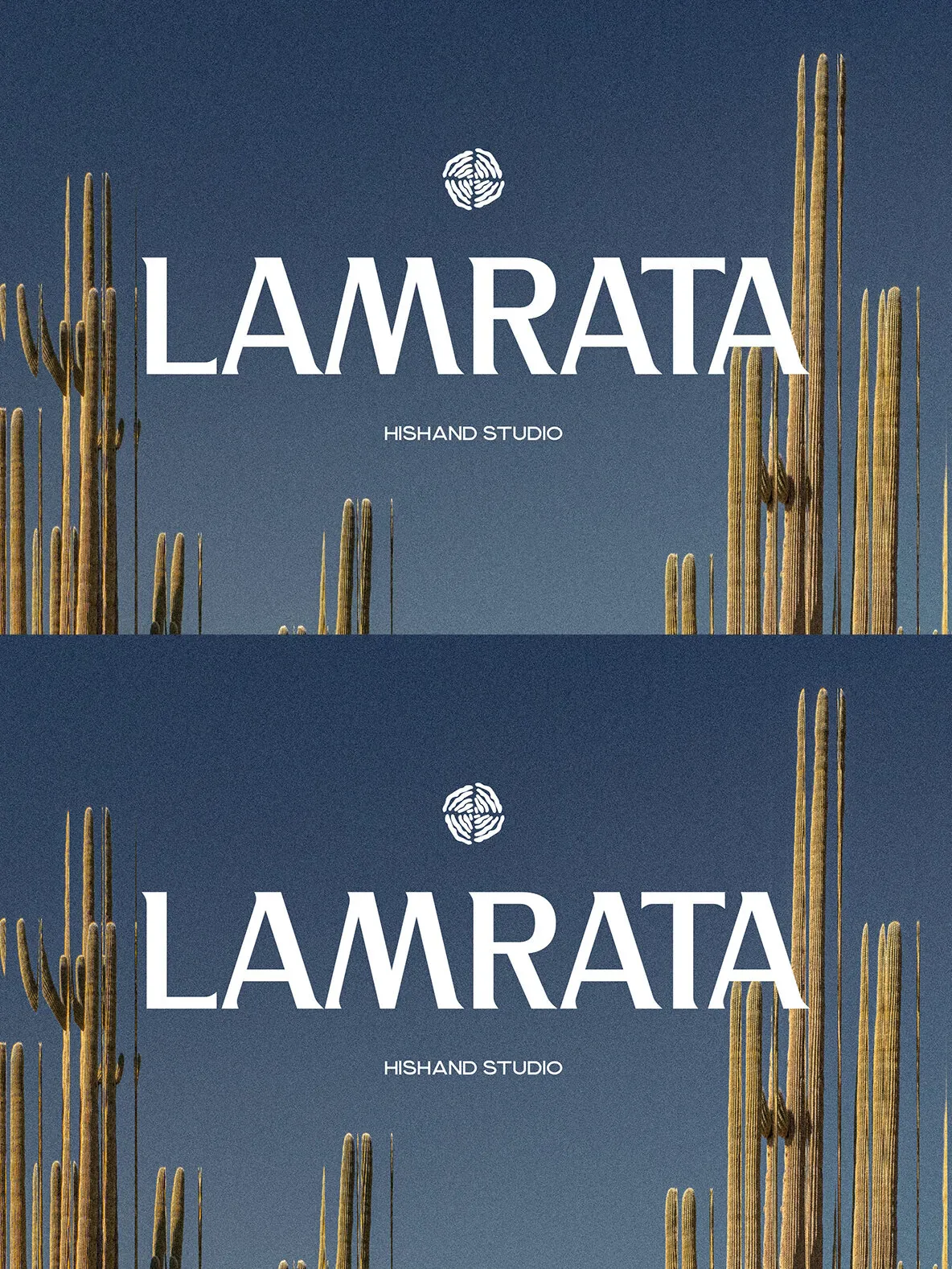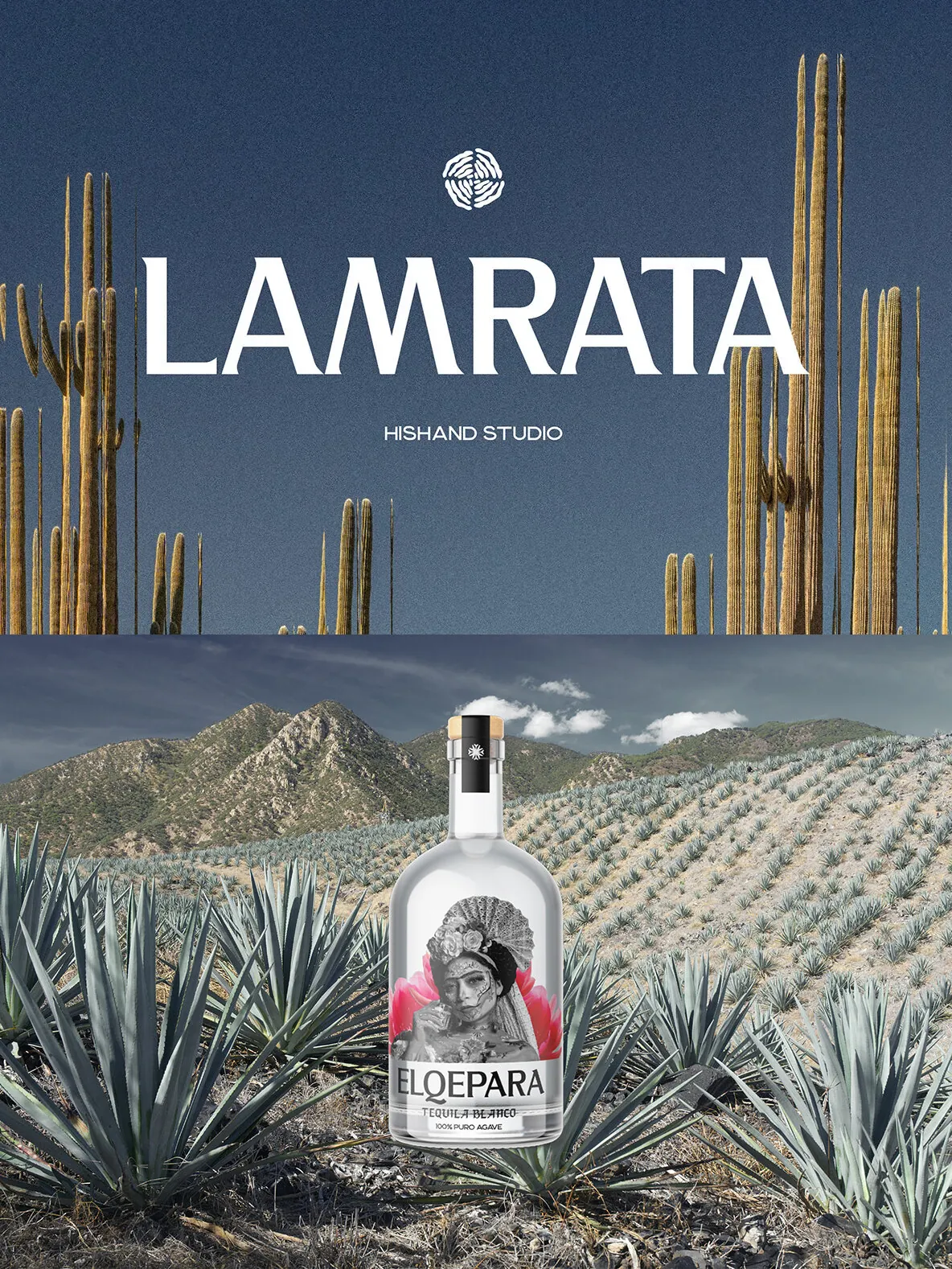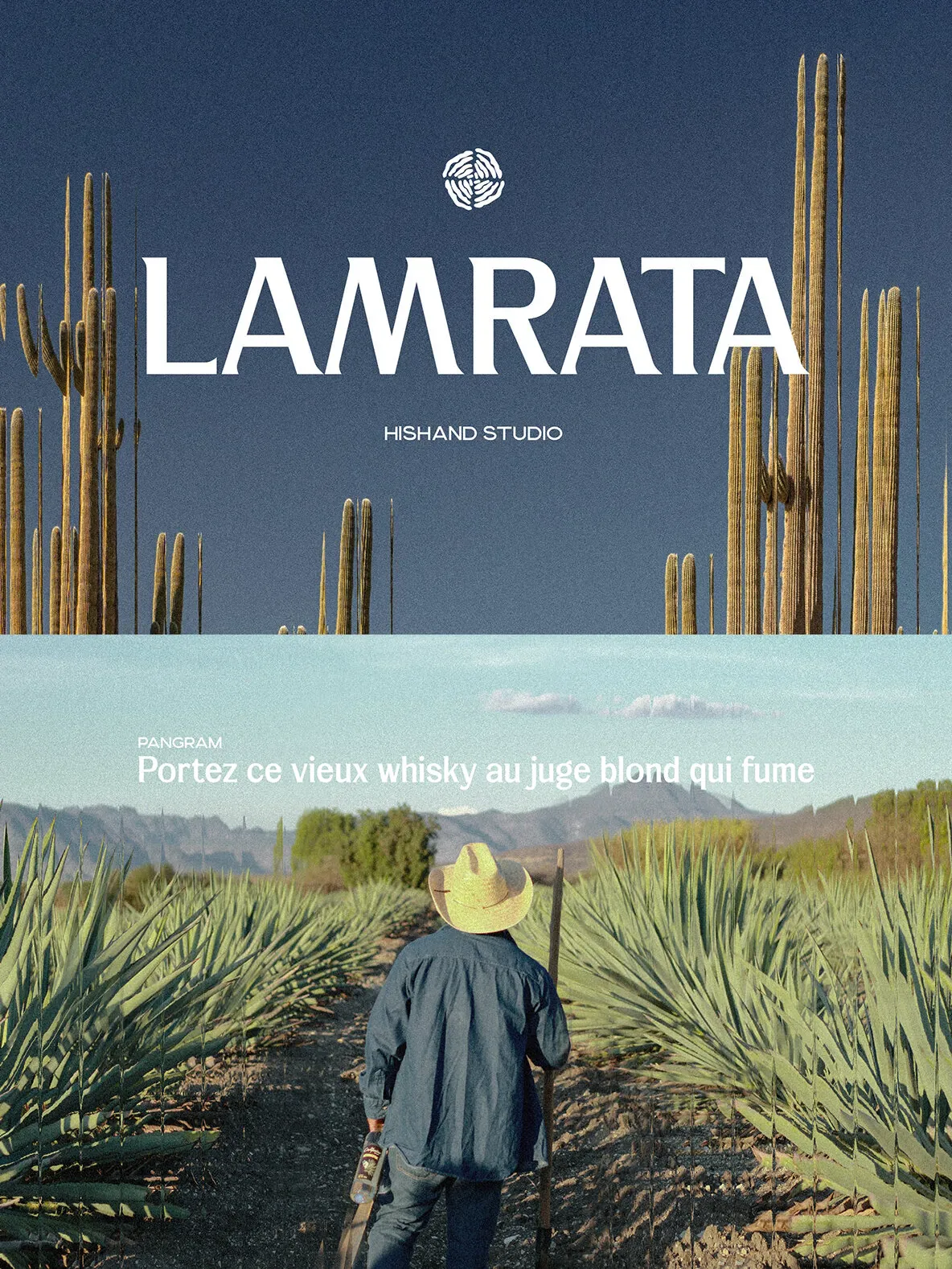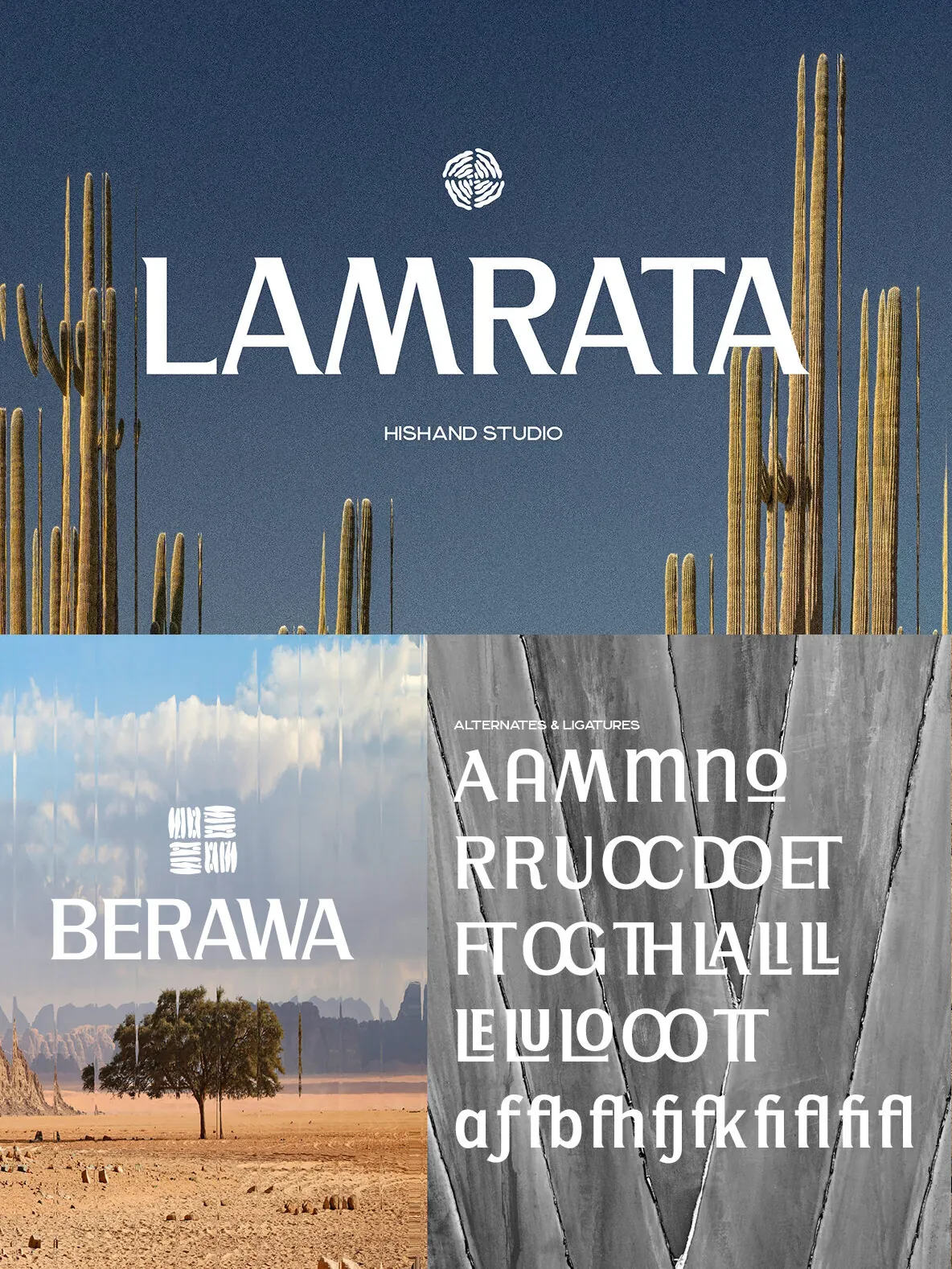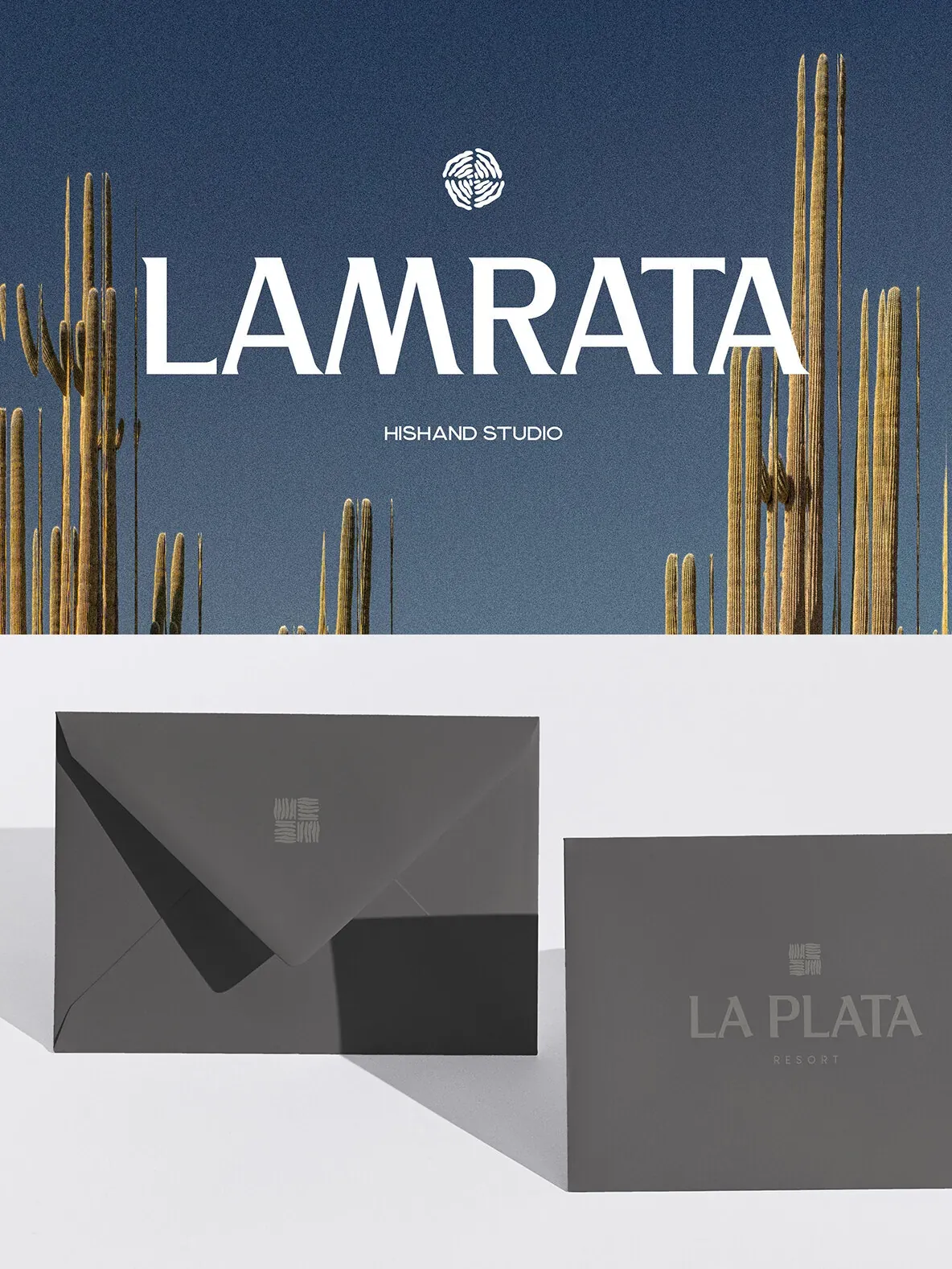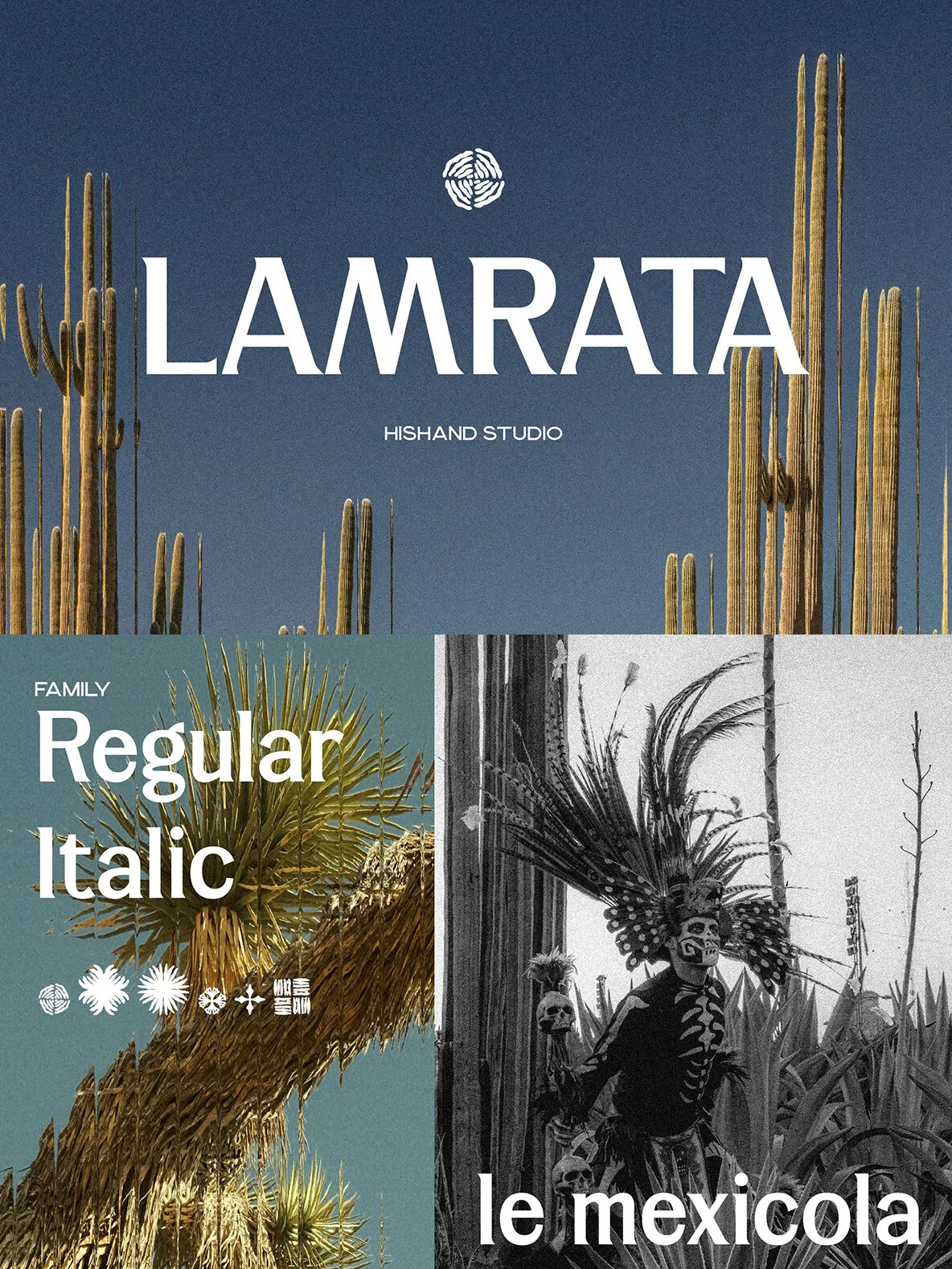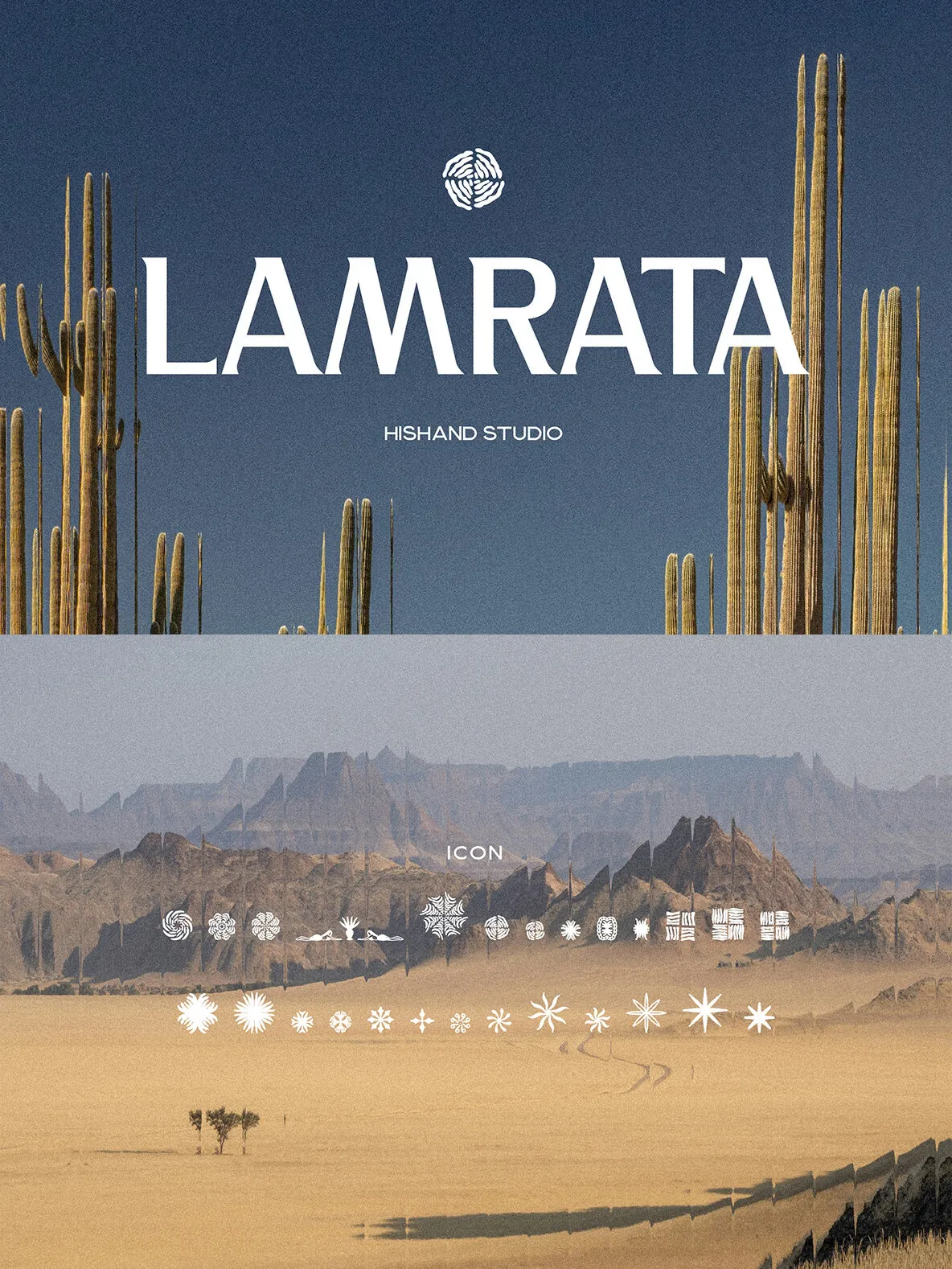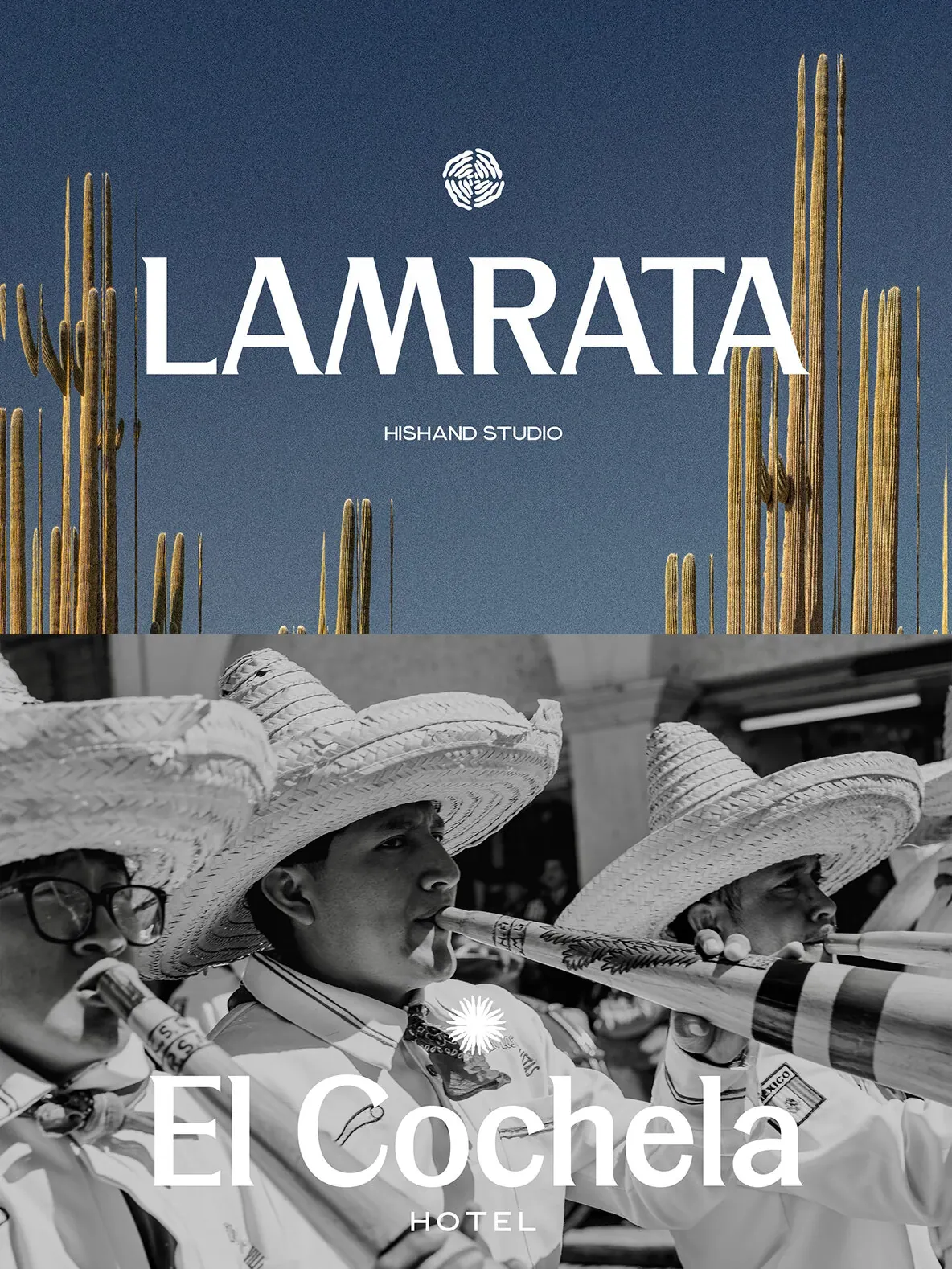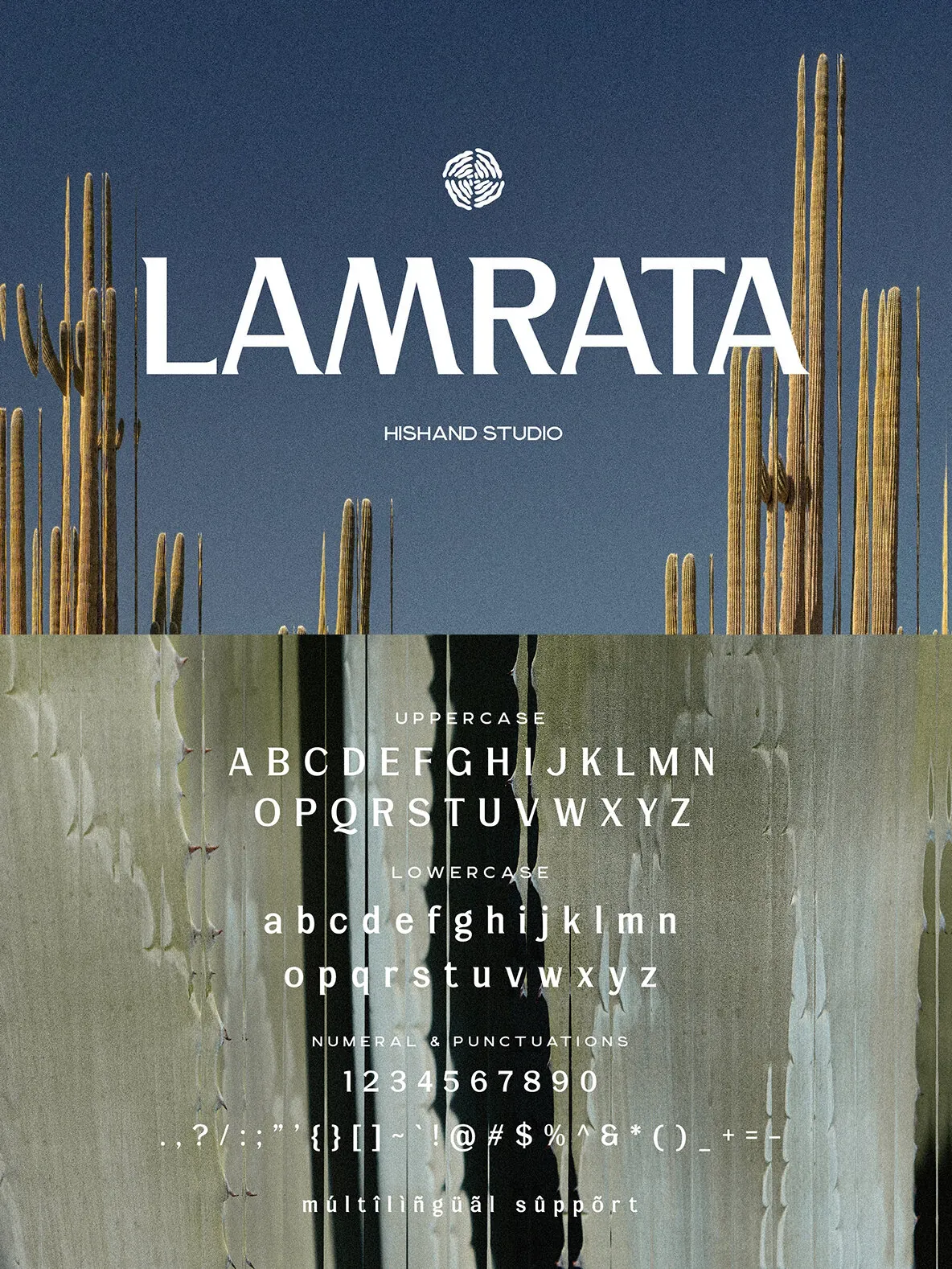
Lamrata — Confident Serif, Quietly Refined
Lamrata is a display serif font that pairs bold structure with refined, classic aesthetics. Built with strong, even strokes, it avoids thin contrasts and relies on solid, confident letterforms. Its serifs remain subtle yet distinctive, giving the typeface an elegant presence while keeping a clean, modern feel.
Made to stand out at larger sizes, Lamrata uses balanced proportions and slightly stylized shapes for a cool, artistic edge. It stays readable in prominent settings and feels both timeless and fresh, making it well suited to designers who want a classic serif voice without an outdated look.
For logos and branding, Lamrata brings a premium, memorable presence. It also works well for headlines and packaging, where a distinctive look matters and the tone needs to stay solid, polished, and refined.
Ligatures
Alternates
Regular
Italic
Icon
Kerning
Multilingual support